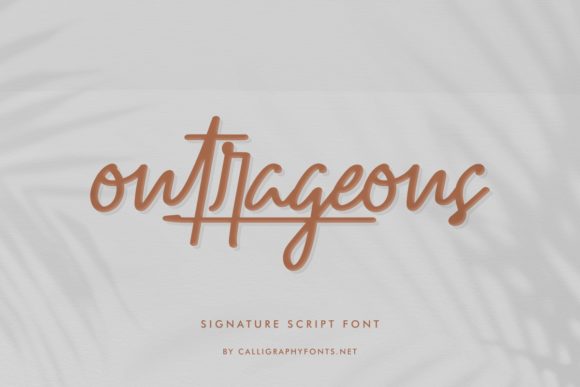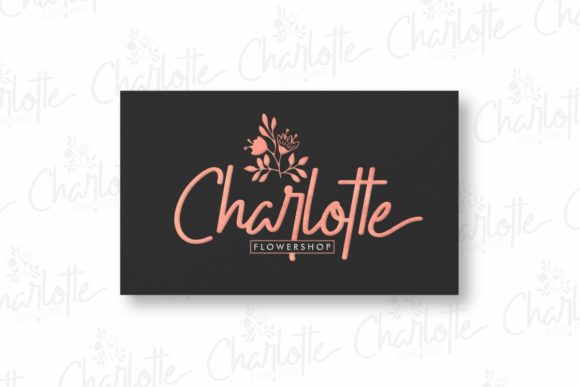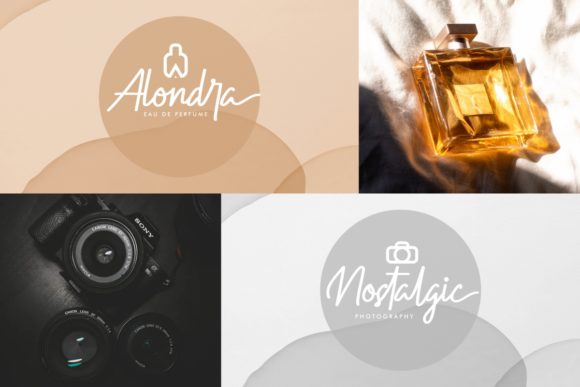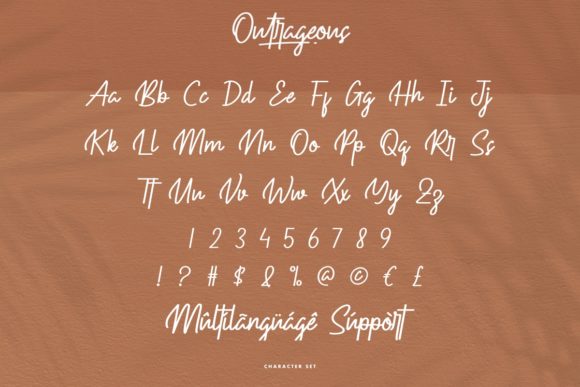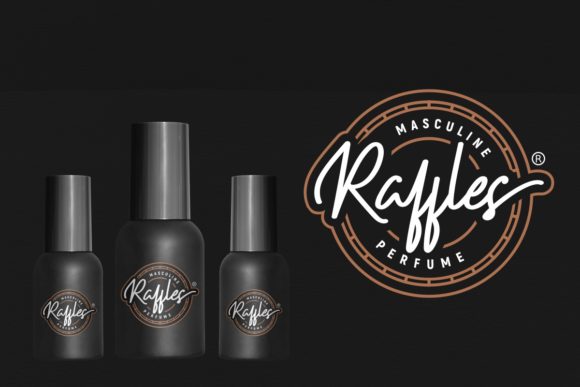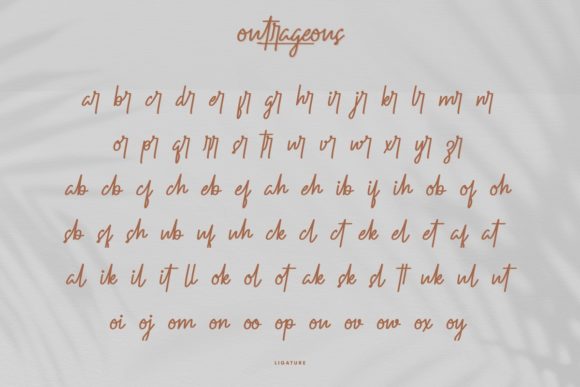
Introduction to Outrageous Font
Have you ever found yourself in the midst of a creative project, staring at a blank canvas, desperate for the perfect font to bring your vision to life? I’ve been there, and I know how frustrating it can be when nothing seems to match the tone and style you’re aiming for. But what if I told you there’s a font that’s so radiant, so elegant, and so versatile that it could be the missing piece to your design puzzle?
Meet the Outrageous Font, a cursive script font that’s as beautiful as it is functional. With its smooth lines, gorgeous glyphs, and stunning alternates, this font is a design resource that’s sure to elevate your creative project to the next level. And the best part? It’s available for a free download, making it an invaluable resource for designers of all levels.
Key Features of Outrageous Font
Honest Review: Outrageous Font
Here are some of the features that I love about the Outrageous Font:
How to Use Outrageous Font
Outrageous Font is perfect for use in creative projects such as:
- Wedding invitations and party decor
Use Comic Sans MS when you need a font that evokes a sense of playfulness and approachability. It’s a great choice for children’s books, advertisements, and other creative projects where a lighthearted tone is desired. Compared to Outrageous Font, Comic Sans MS is more subdued and less attention-grabbing.
Great Vibes is a beautiful, high-quality script font that is perfect for design projects where a touch of elegance is needed. It’s a great alternative to Outrageous Font for projects that require a more sophisticated and refined design. Great Vibes is a free download and can be used for both personal and commercial projects.